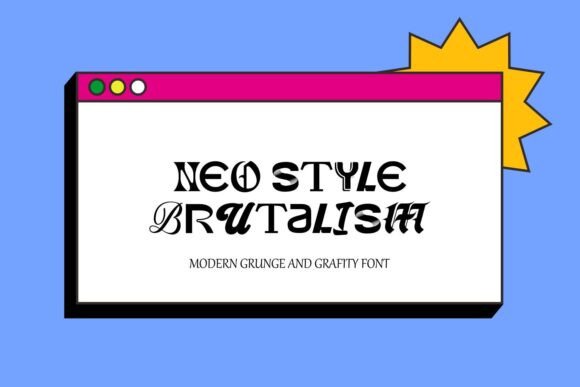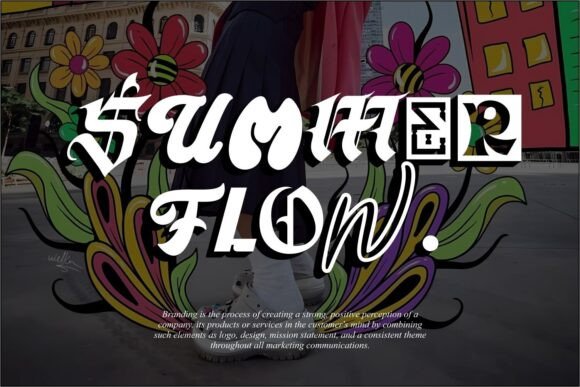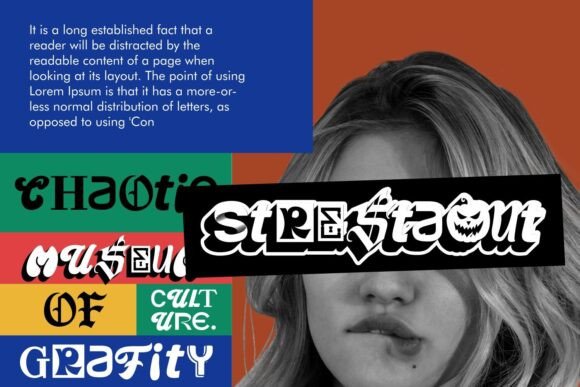
Introduction to Pluralism Font
Discover the vibrant energy of city life with Pluralism, a dynamic graffiti-inspired font that resonates power and rebellion.
👤 Author Whymore
Pluralism showcases its gritty, street-cred aesthetic ideal for standout logos, impactful posters, intriguing album covers, and eye-catching brand identities This graffiti-infused font sets itself apart with its punchy color spectrum and innovative letter design, injecting fresh, modern attitude to time-honored graffiti calligraphy.
Key Features of Pluralism Font
Why Choose Pluralism Font?